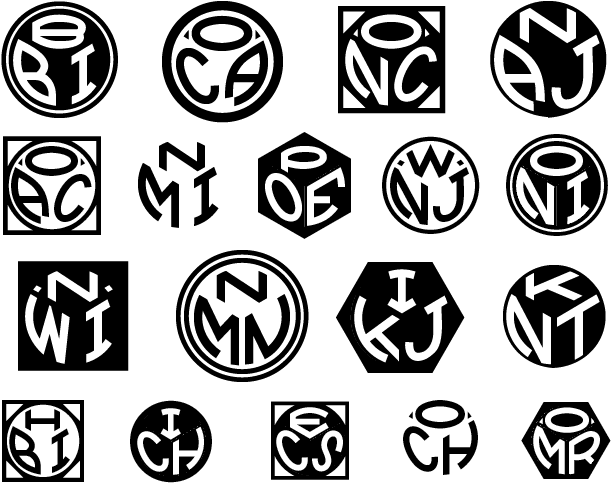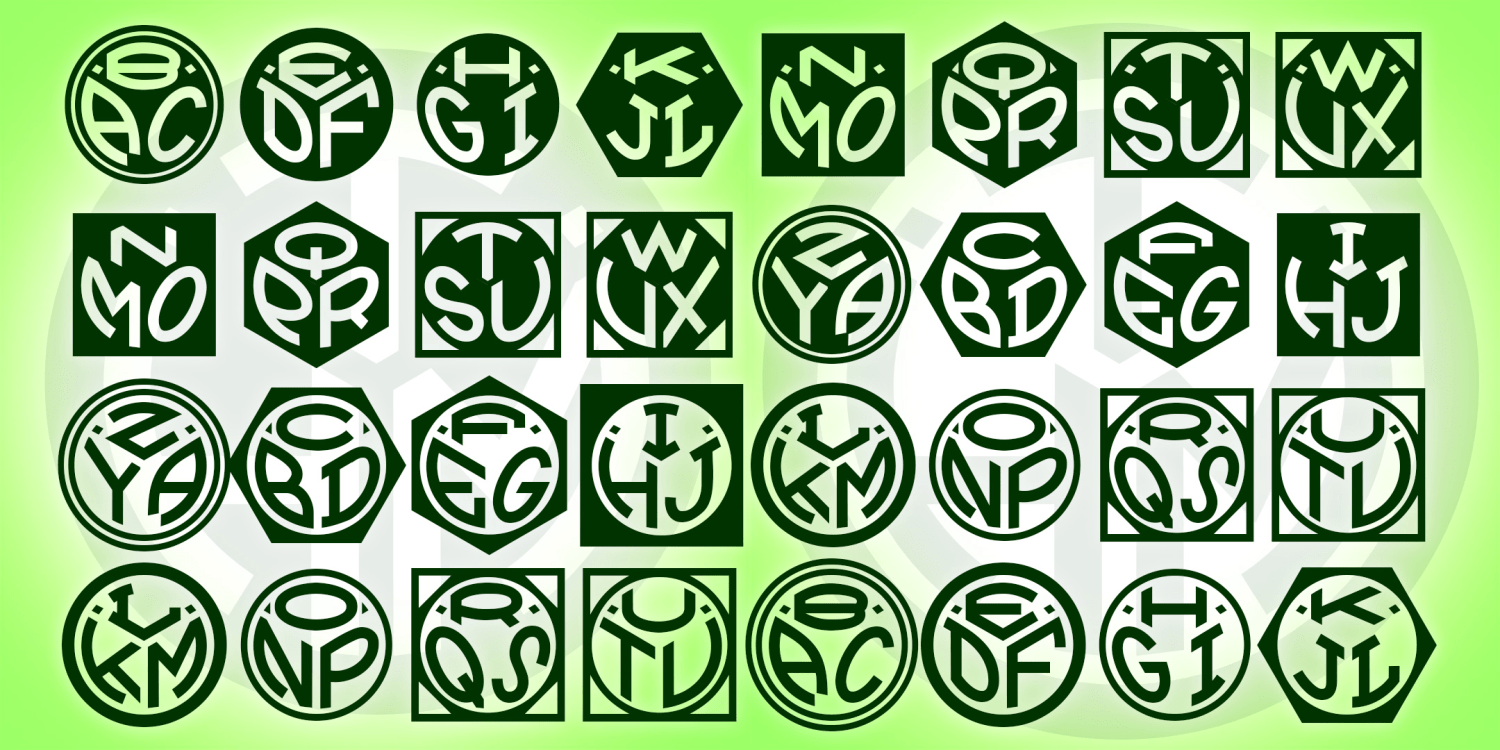
Triad Monograms
About Triad Monograms
TRIAD MONOGRAMS is a set of 4 fonts that allow you to create custom 3-letter monograms within a divided circle. Includes black and white backgrounds, with or without points on the middle/top letters, and a choice of decorative frames.